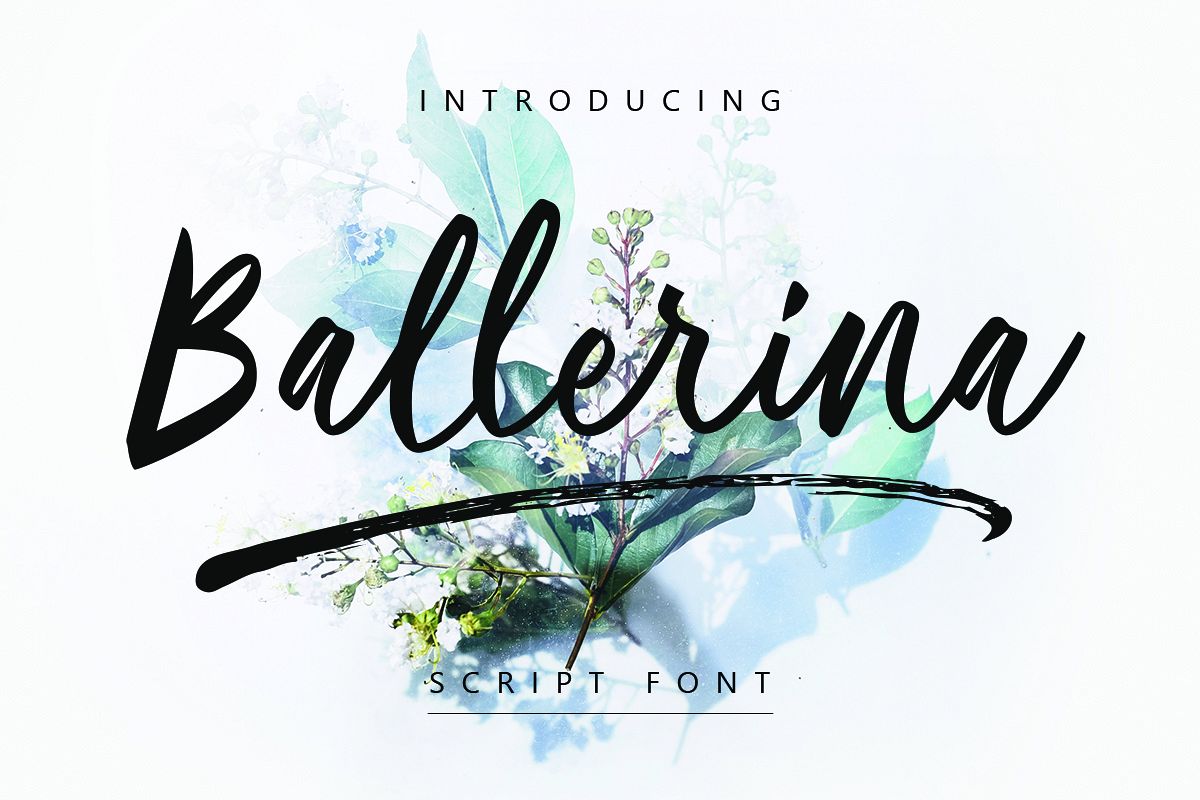
Ballerina| Script Font
introducing Ballerina Script is a Script font that is suitable for brand logos, each letter has been made directly by handwriting to make your text look beautiful. With an elegant style, this modern font will be perfect for various projects: watermarks, posters, weddings, branding, logos, fashions, clothes, letters, invitations, etc.In this product you will get: